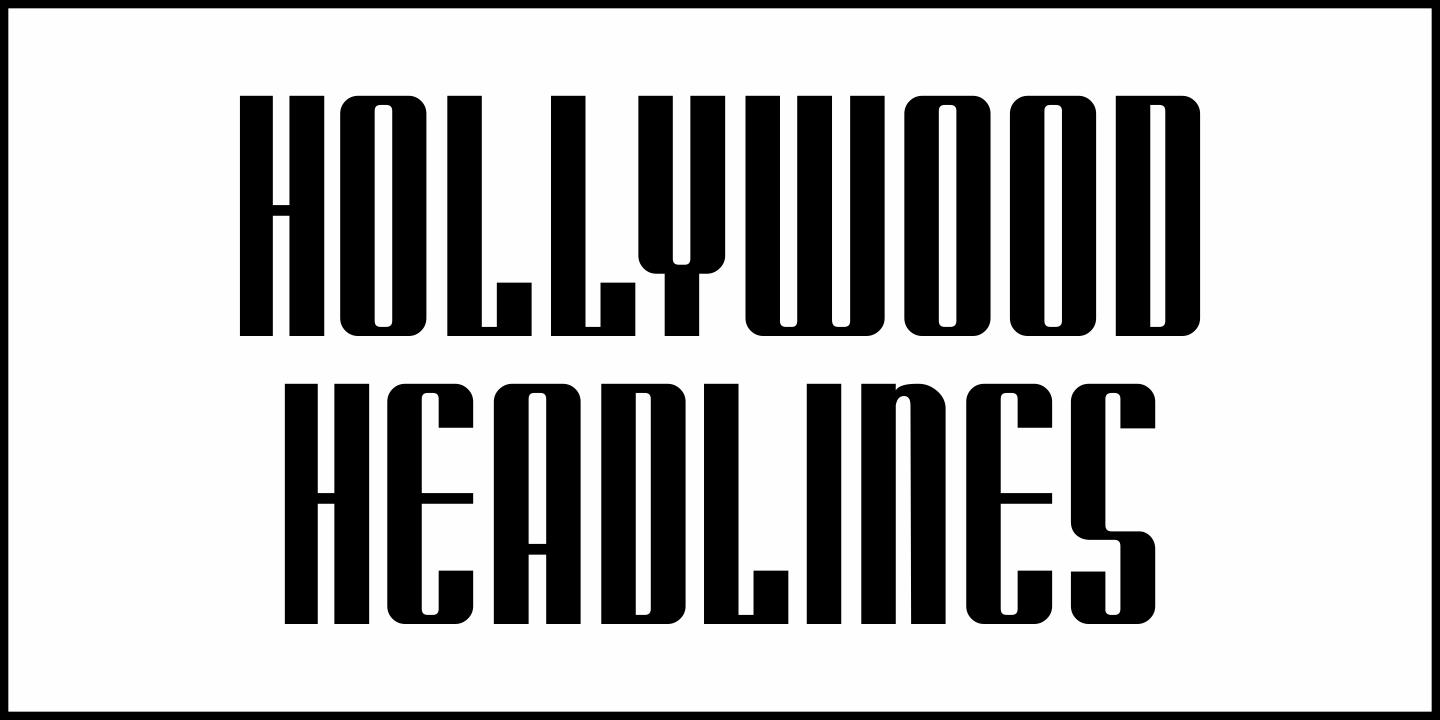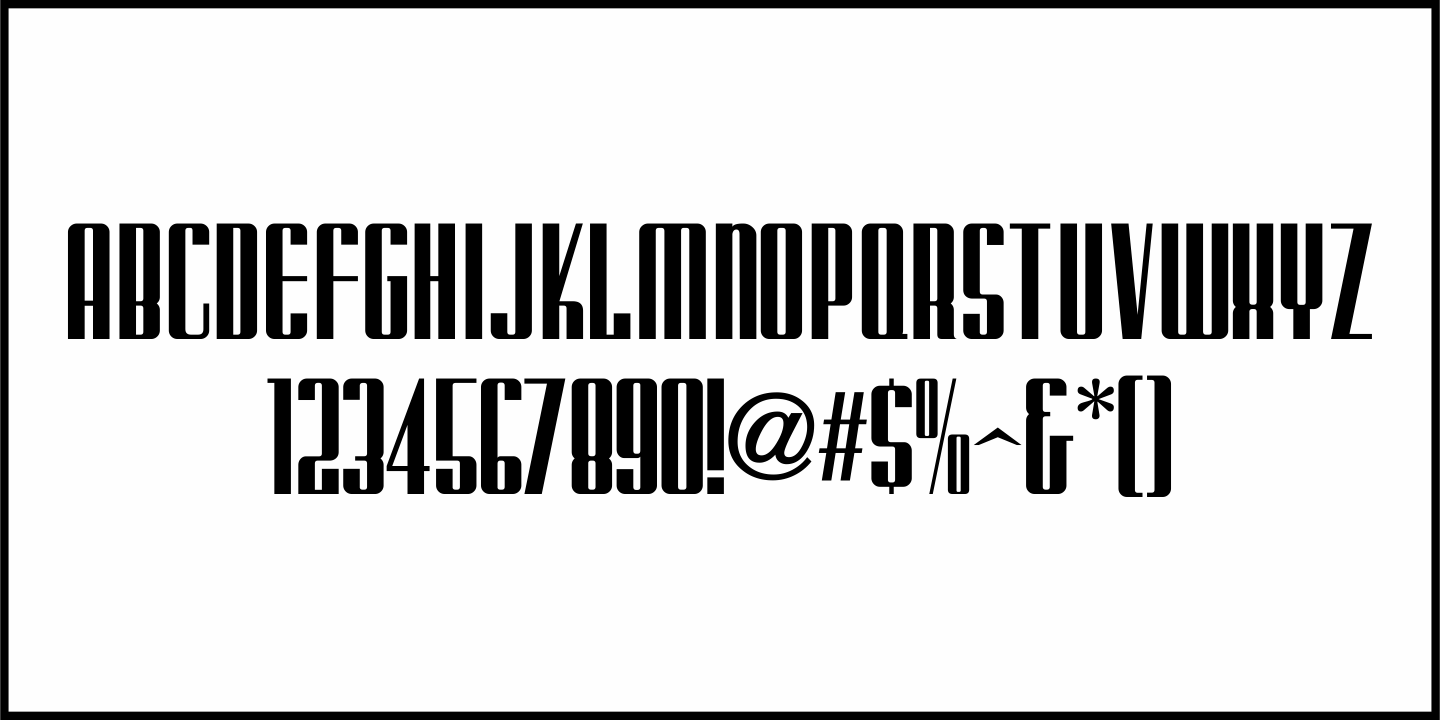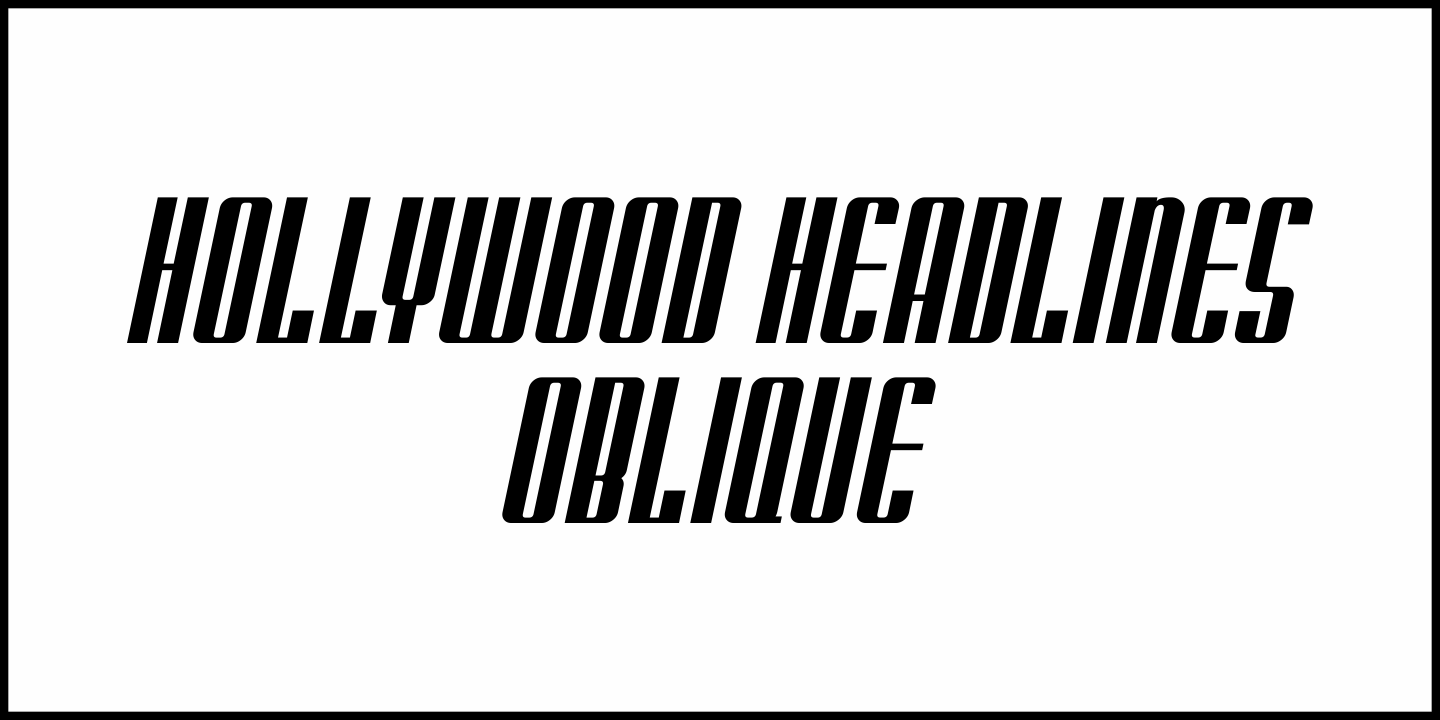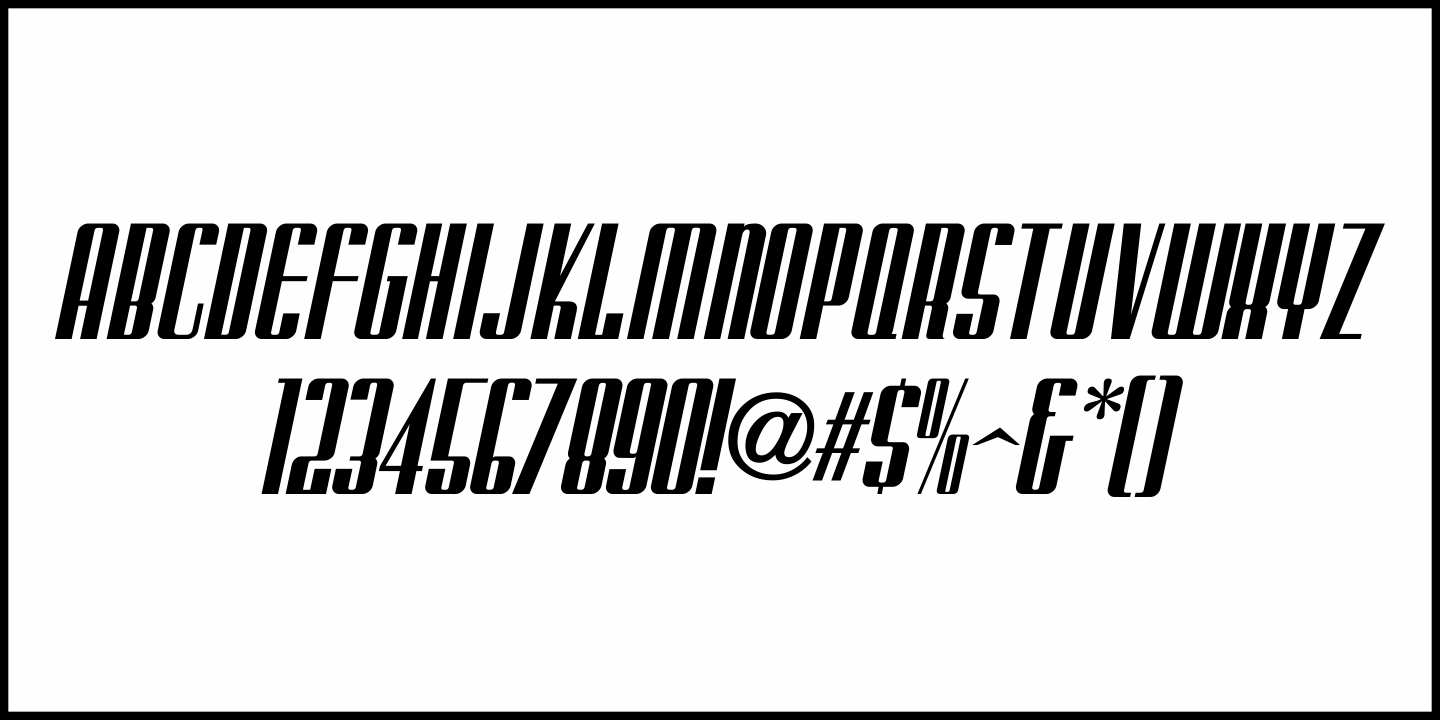
Hollywood Headlines
The May, 1941 issue of Cinelandia (a Spanish language film fan magazine) had it's title block hand lettered in a bold, condensed Art Deco design.
This highly stylized type face is now available as Hollywood Headlines JNL, in both regular and oblique versions.
Hollywood Headlines JNL Regular by Jeff Levine Fonts